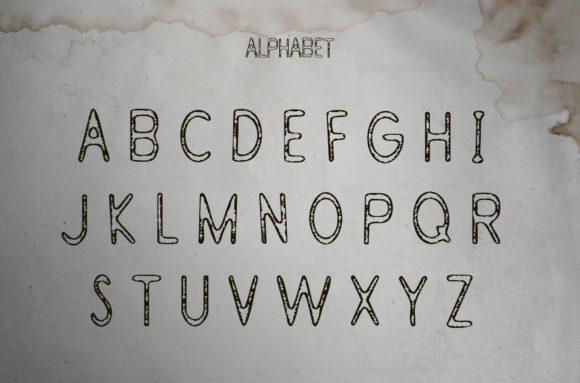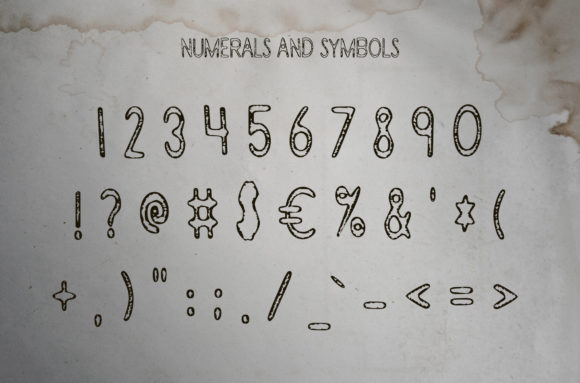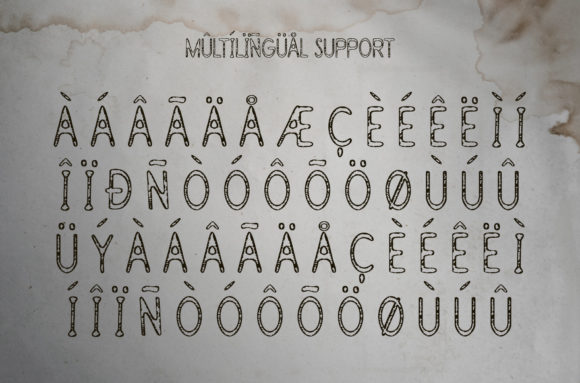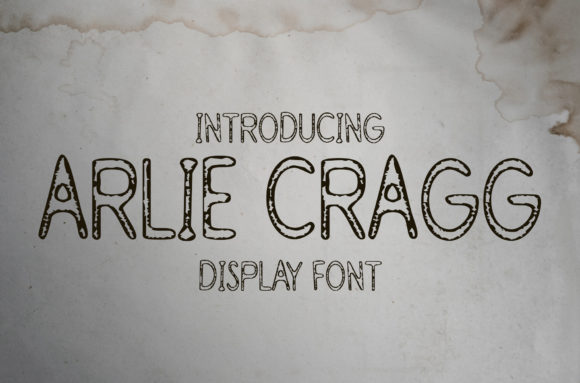
The Arlie Cragg Font: A Cool and Unique Display Font
I’ll never forget the design moment when I stumbled upon the Arlie Cragg font. I was working on a project for a client who needed a bold, eye-catching title, and I was struggling to find the right font. That’s when I discovered Arlie Cragg, a cool, uniquely designed display font that instantly caught my attention. In this article, I’ll share my experience with Arlie Cragg, its features, and how to use it effectively in your designs.
So, what do I love about Arlie Cragg? 🤔 Here are a few things:
- ✨ Unique design: Arlie Cragg has a one-of-a-kind look that’s sure to make your designs stand out.
- ✅ High versatility: This font is perfect for display purposes, but it can also be used for headings, titles, and even quotes.
- 💡 Inspires creativity: Arlie Cragg’s distinctive style will spark your imagination and help you create something truly amazing.
Now, let’s talk about some small quirks or limitations:
- ⚠️ Limited use for body text: Due to its bold and decorative nature, Arlie Cragg might not be the best choice for long paragraphs or body text.
- 🤔 Some characters may require adjustment: Depending on the context, you might need to tweak certain characters to ensure optimal spacing and readability.
The Story Behind Arlie Cragg
Arlie Cragg was designed by a talented type designer who aimed to create a unique, attention-grabbing font. The font’s name is inspired by a combination of the designer’s favorite names and a nod to the natural world.
| What is Arlie Cragg best used for? | Arlie Cragg is perfect for display purposes, such as titles, headings, and quotes. |
| Can I use Arlie Cragg for body text? | While possible, Arlie Cragg might not be the best choice for long paragraphs or body text due to its bold and decorative nature. |